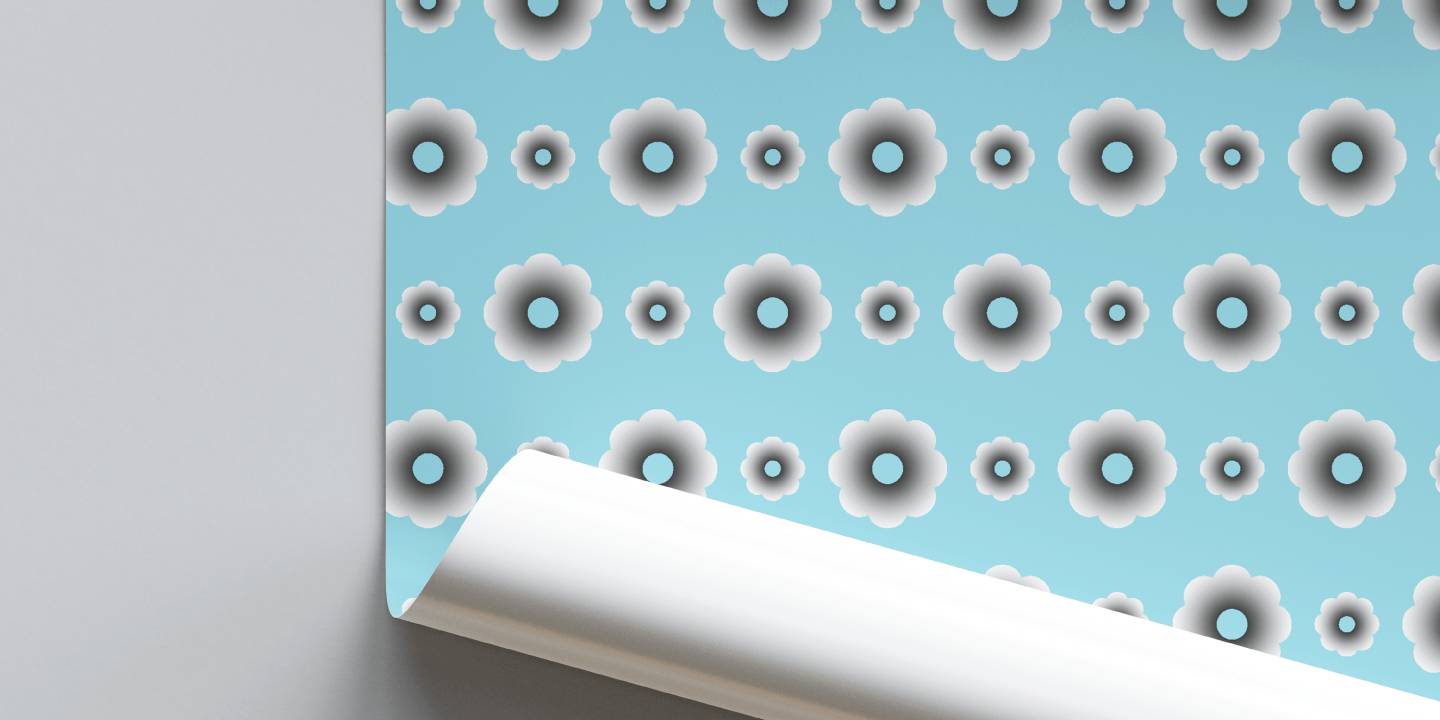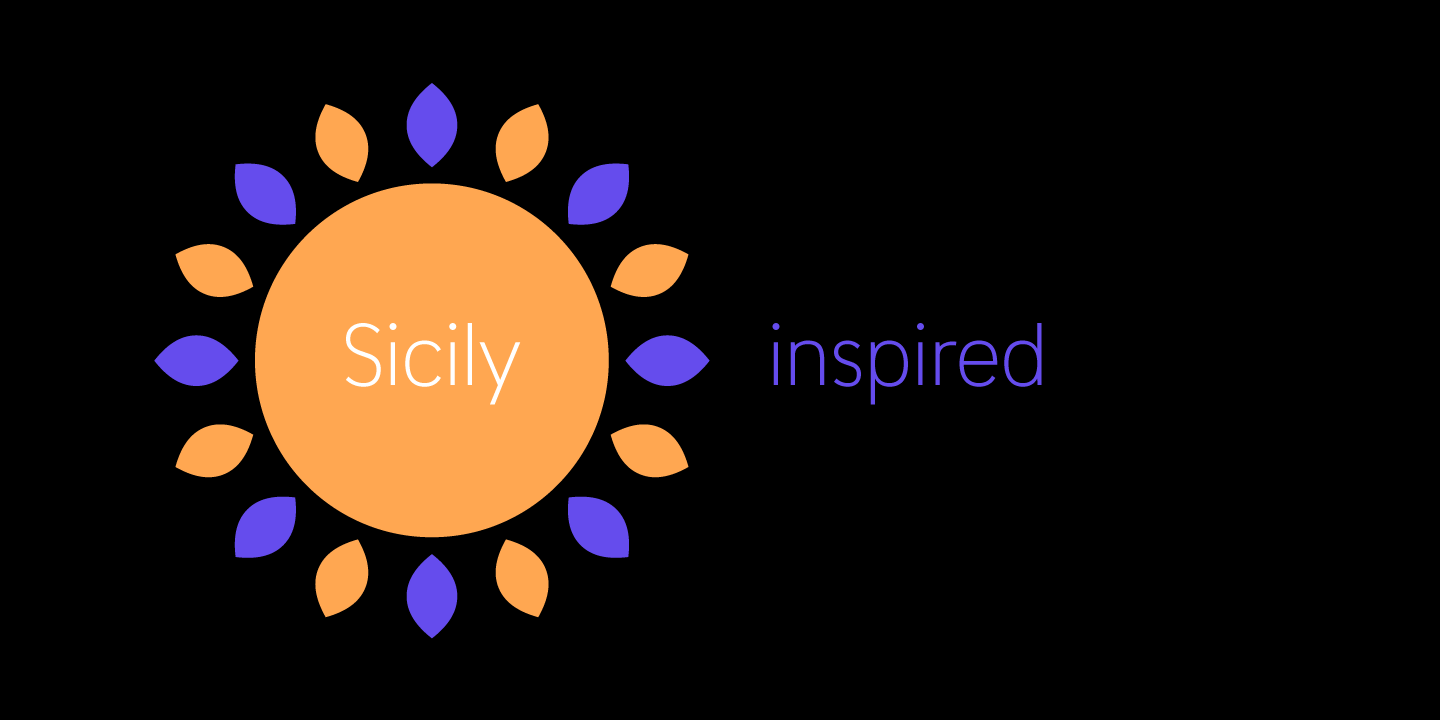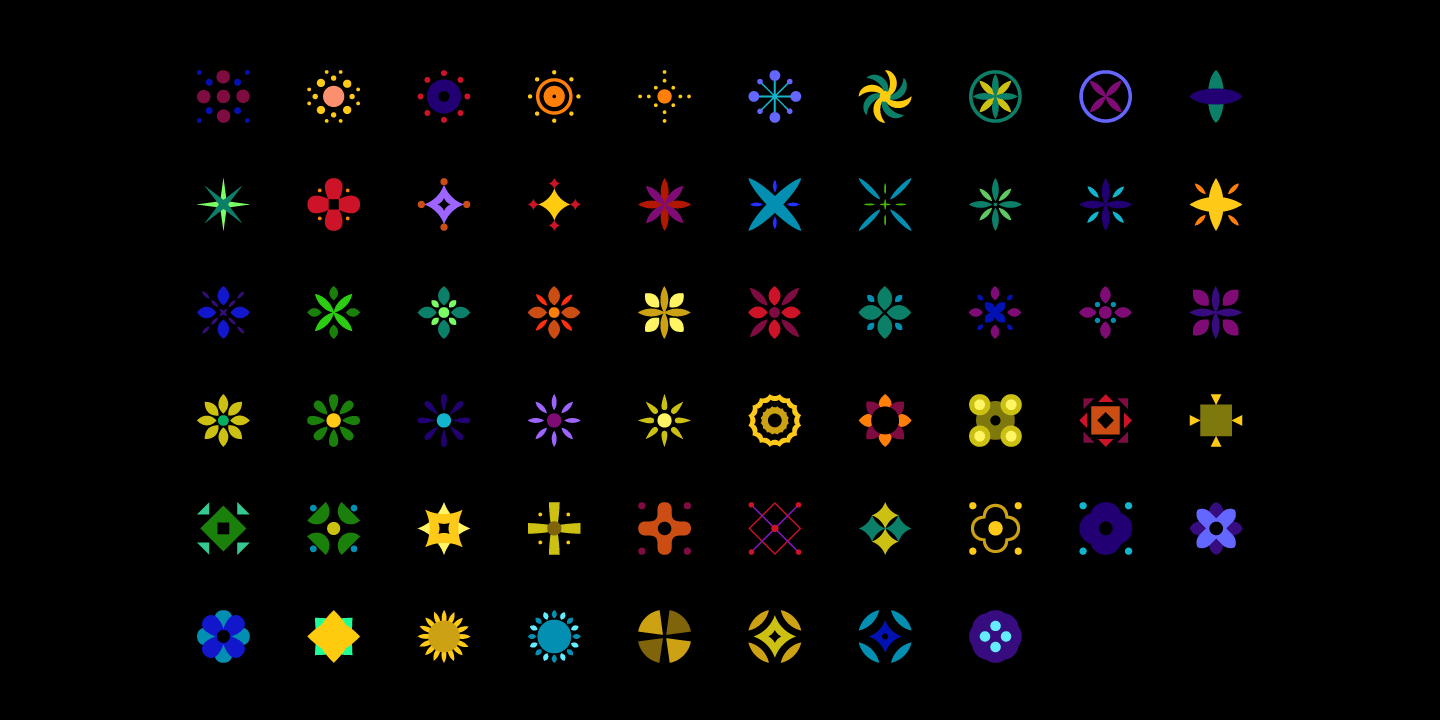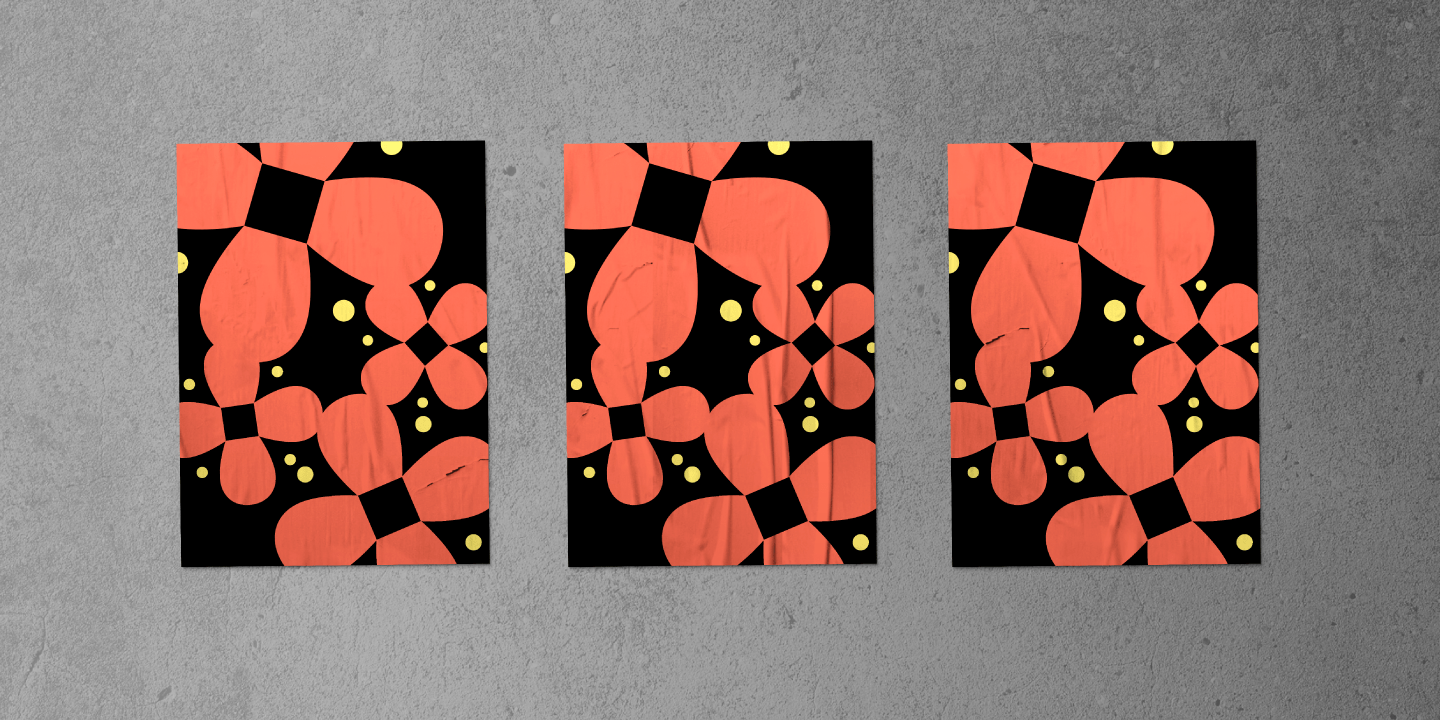
About Poeta Color
Poeta is an ornamental font for making patterns and text decoration. It contains floral and nature motifs. The symbols are versatile enough for simple decoration or festive holiday moods. Designers can use Poeta to make unique lines, borders, backgrounds,…